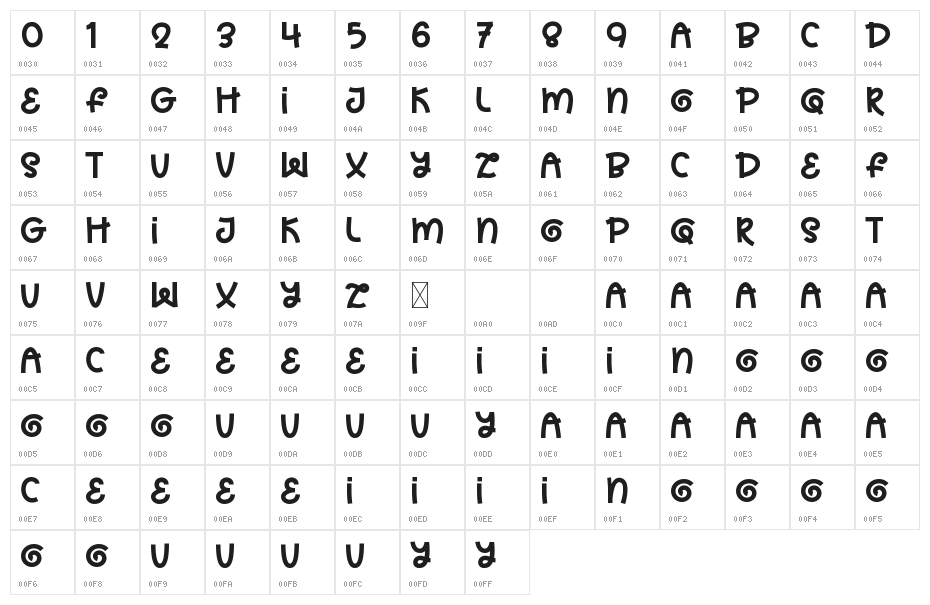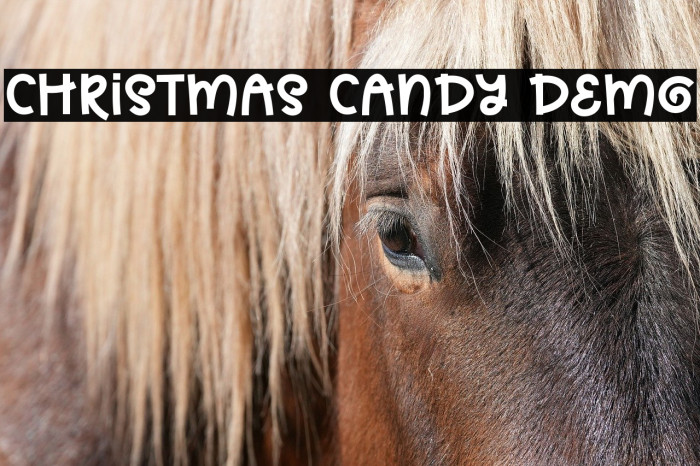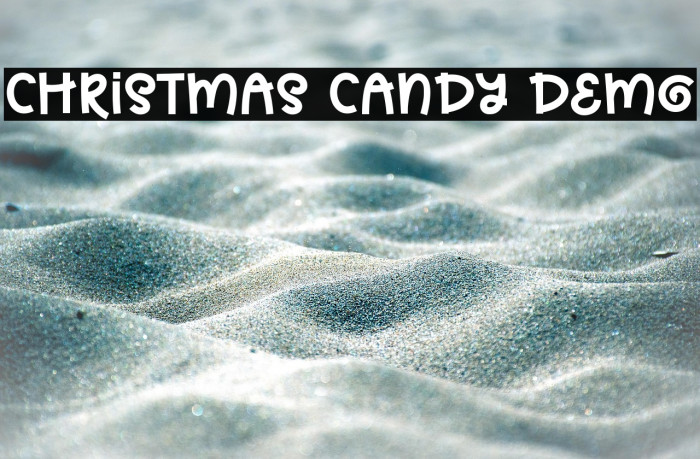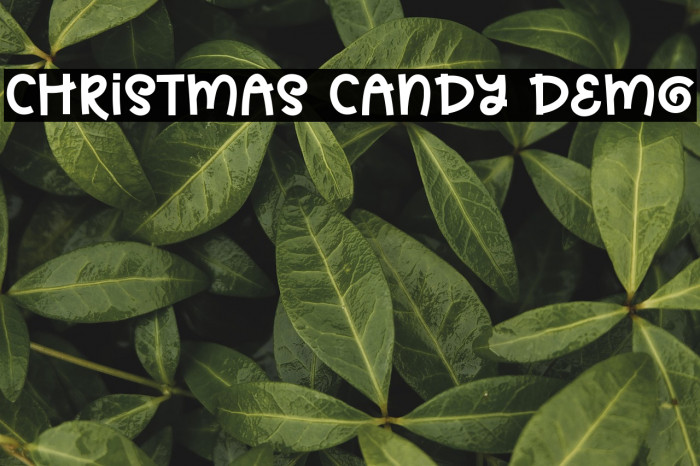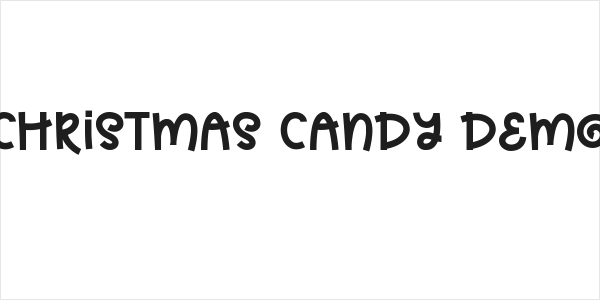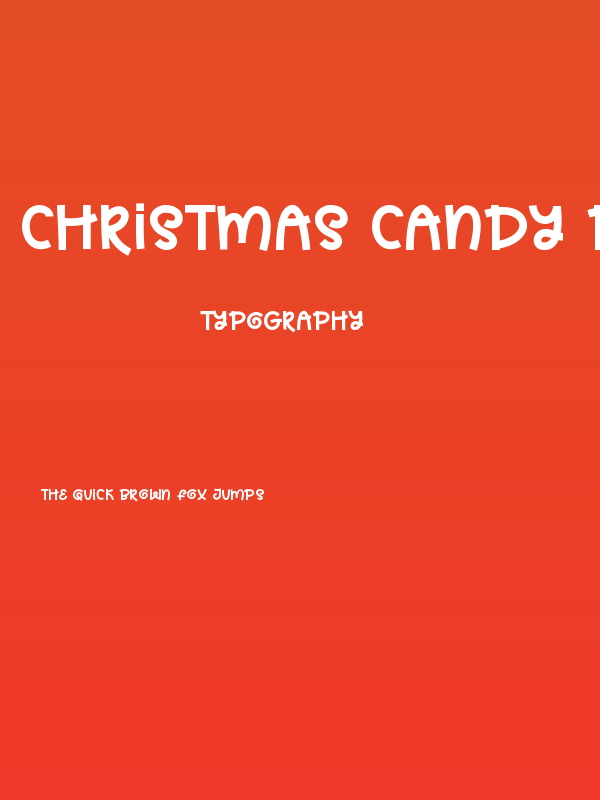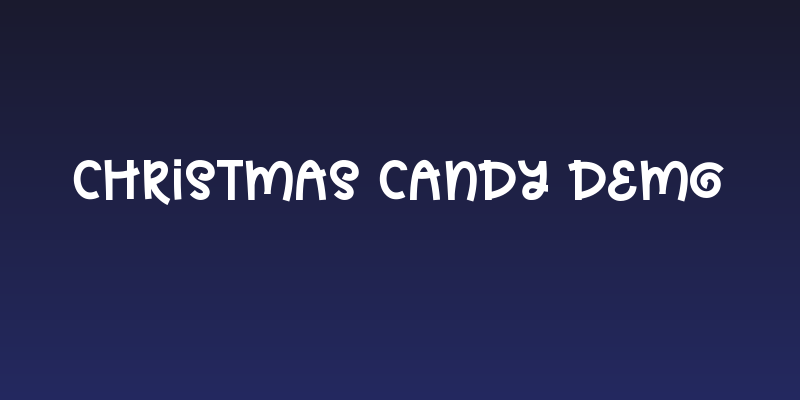
Christmas Candy Demo Font
Christmas Candy Demo Description
This playful and whimsical font features bold, rounded characters with a fun, festive flair. Each letter has a unique, slightly irregular shape, adding to its charm and making it perfect for holiday-themed projects. The strokes are thick and consistent, providing a strong visual impact. The font maintains a consistent baseline, with some characters having playful loops and curls, reminiscent of candy canes or festive decorations. Its bold nature ensures readability while still conveying a sense of joy and celebration.
| Overall Style | Playful, Festive |
| Proposed Projects | Ideal for holiday cards, festive banners, children's party invitations, and playful branding materials. |